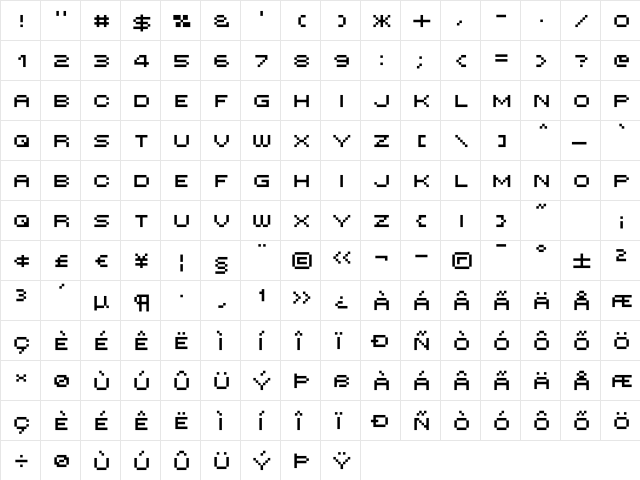
Mini 7 Extended Regular
Design Context for Mini 7 Extended Typeface
Mini 7 Extended offers clean, dependable letterforms without strong stylistic allegiance, making it a practical choice for designers who need flexibility.
Pro Tip: Pair Mini 7 Extended with a font of contrasting weight or personality to build a more expressive typographic hierarchy.